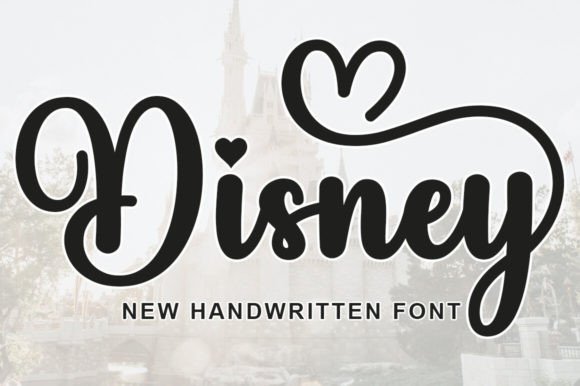
Introducing Disney Font: The Ultimate Choice for Whimsical Designs
Are you a designer or crafter looking for a font that can add a touch of magic to your creative projects? Look no further than the Disney Font! This sweet and friendly handwritten font is designed to wrap your designs in a warm embrace of adorability, making it perfect for conveying a lighthearted and endearing aesthetic.
The Charm of Disney Font
Disney Font is a charming and innocent handwritten font that infuses a delightful playfulness into your designs. Its letterforms are carefully crafted to evoke a sense of wonder and enchantment, making it ideal for projects that require a touch of whimsy. Whether you’re designing a logo, creating a social media graphic, or crafting a handmade card, Disney Font is the perfect choice.
Key Features of Disney Font
- Handwritten charm: Disney Font is a handwritten font that adds a personal touch to your designs.
- Whimsical aesthetic: Its charming letterforms and innocent vibe make it perfect for conveying a lighthearted and endearing aesthetic.
- Versatile: Disney Font can be used for a wide range of design projects, from logos and branding to social media graphics and handmade crafts.
- Easy to read: Despite its playful nature, Disney Font is easy to read and understand, making it perfect for designs that require a clear message.
Uses of Disney Font
Disney Font is a versatile font that can be used for a wide range of design projects, including:
- Logo design: Create a memorable and adorable logo for your brand or business.
- Social media graphics: Add a touch of whimsy to your social media graphics, such as Facebook posts, Instagram stories, and Twitter headers.
- Handmade crafts: Use Disney Font to add a personal touch to your handmade crafts, such as cards, gift tags, and scrapbook pages.
- Branding: Create a cohesive brand identity with Disney Font, perfect for businesses that want to convey a friendly and approachable aesthetic.
Tips for Using Disney Font
Here are some tips for using Disney Font in your designs:
- Pair with bold fonts: Pair Disney Font with bold fonts to create a striking contrast and add visual interest to your designs.
- Use pastel colors: Disney Font looks great with pastel colors, which add to its whimsical and playful aesthetic.
- Experiment with sizes: Experiment with different font sizes to create visual hierarchy and add emphasis to your designs.
- Add illustrations: Add illustrations or graphics to your designs to enhance the whimsical aesthetic of Disney Font.
In conclusion, Disney Font is a sweet and friendly handwritten font that can add a touch of magic to your designs. Its charming letterforms and innocent vibe make it perfect for conveying a lighthearted and endearing aesthetic, ideal for designers and crafters who want to create whimsical and playful designs. With its versatility and ease of use, Disney Font is a great addition to any designer’s toolkit.